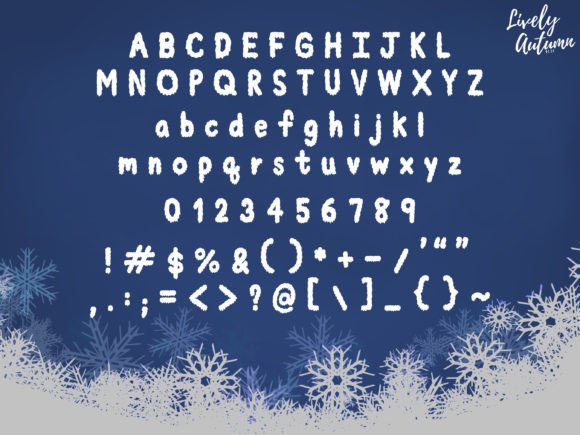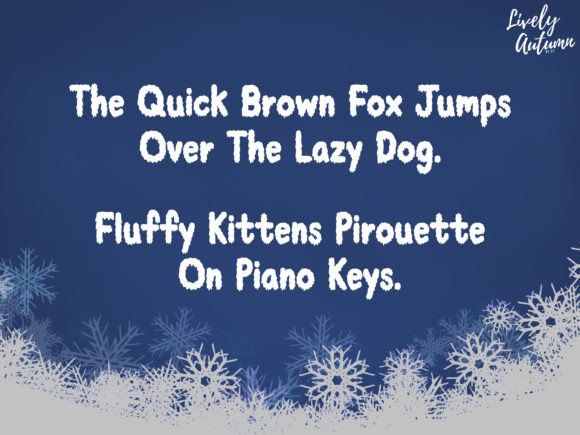
Melting Font – Free Download
Introduction to Melting Font
Melting Font is a fancy decorative font.
The Metling font is designed with a melting shape on every letter, making it perfect for your winter and Christmas-themed projects From invitations to posters, social media graphics, and more.
Key Features of Melting Font
Why Choose Melting Font?